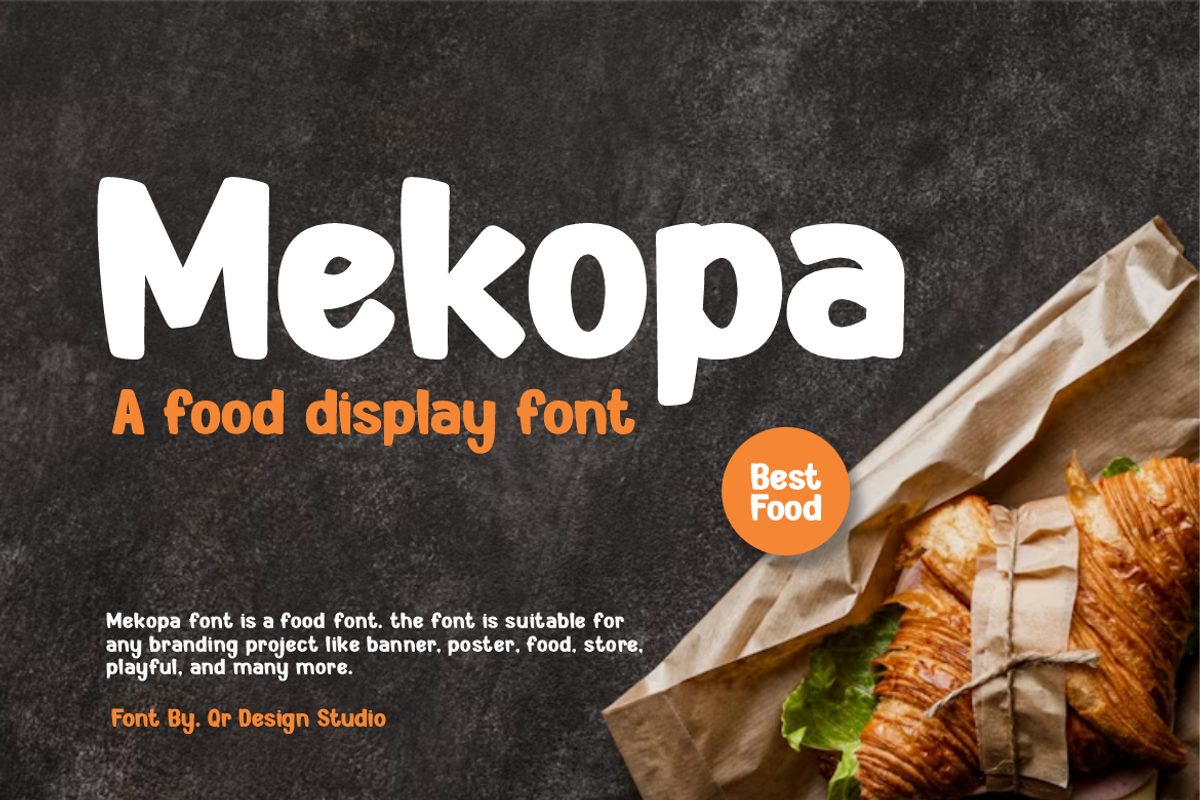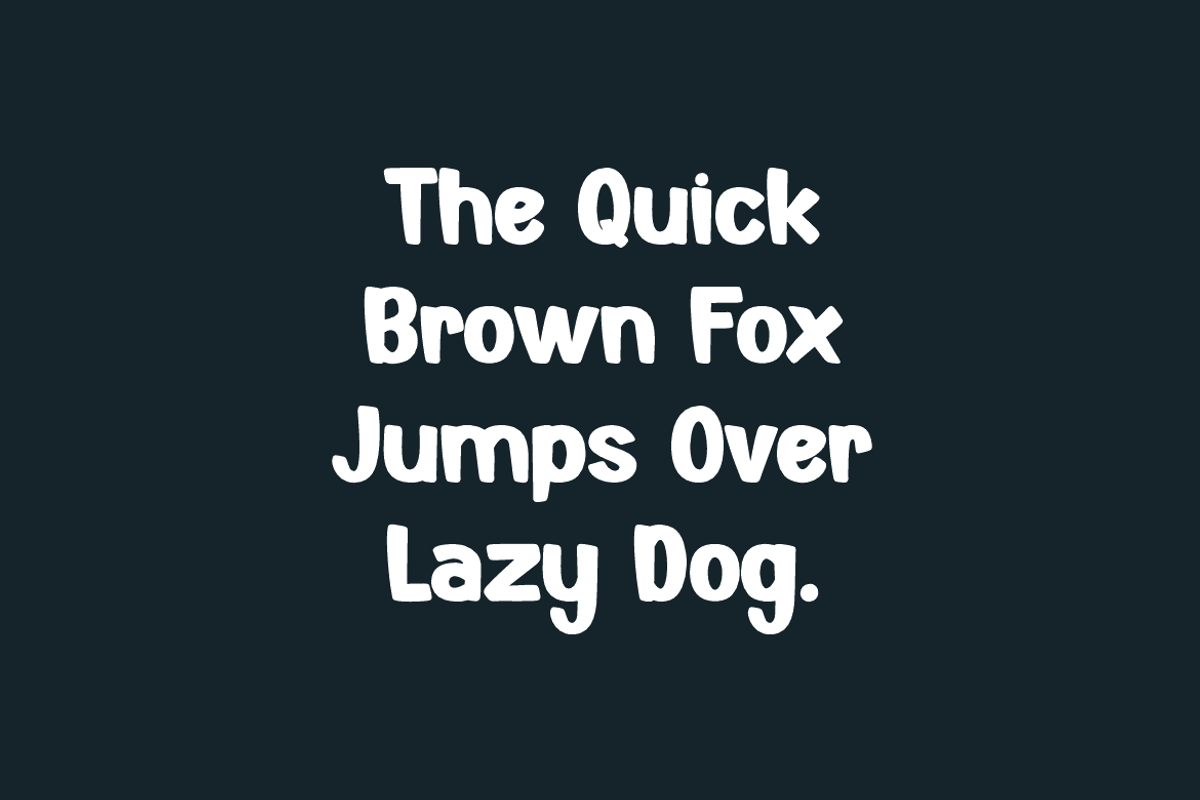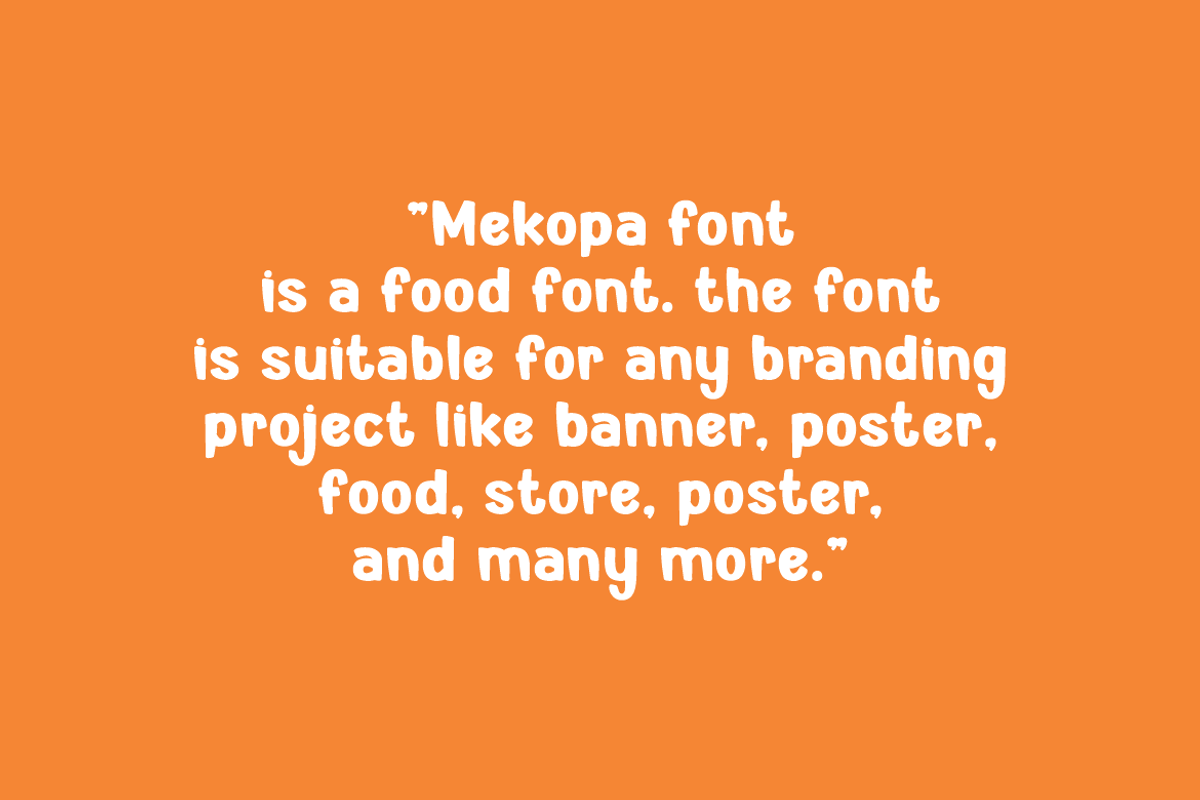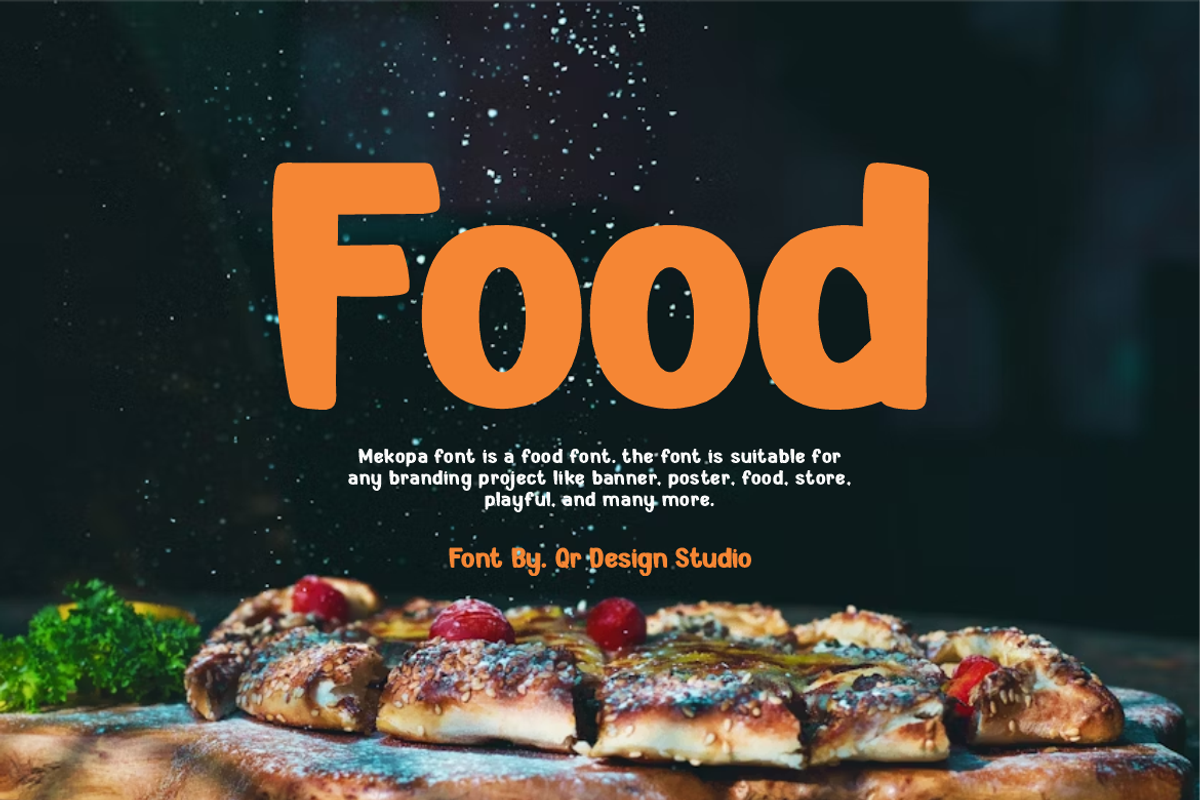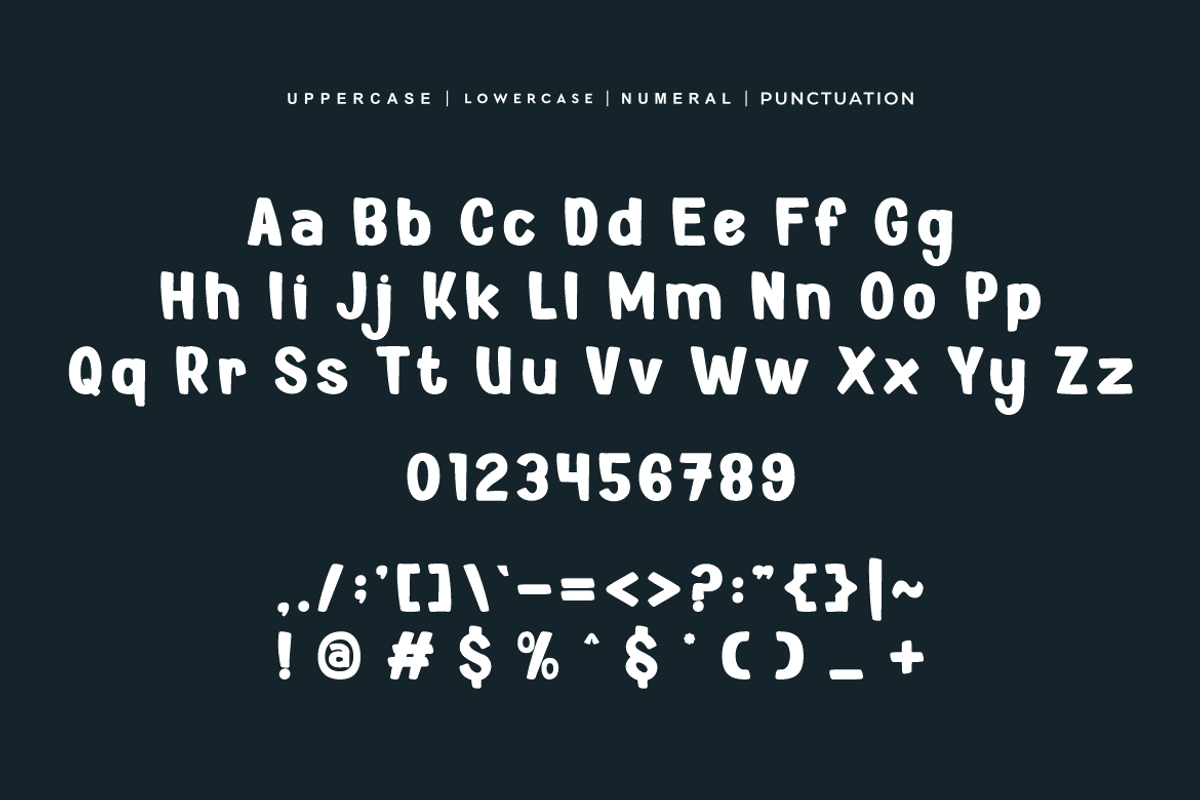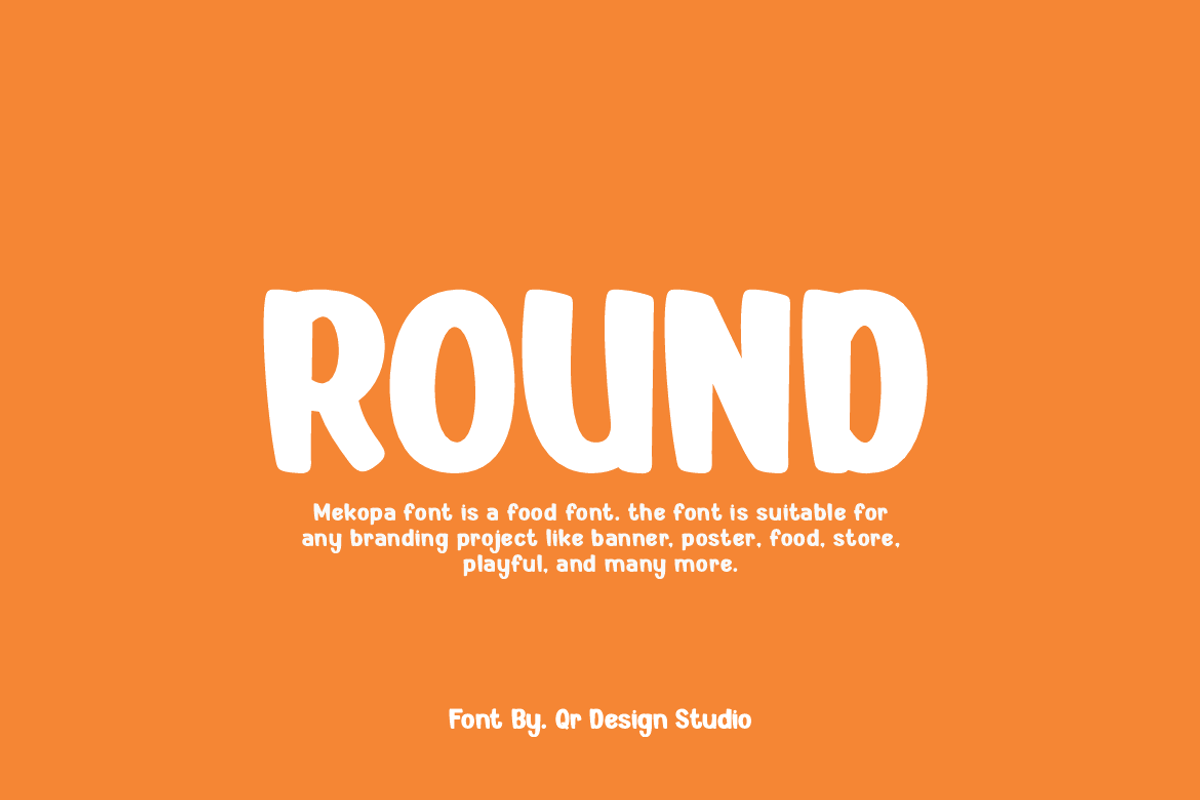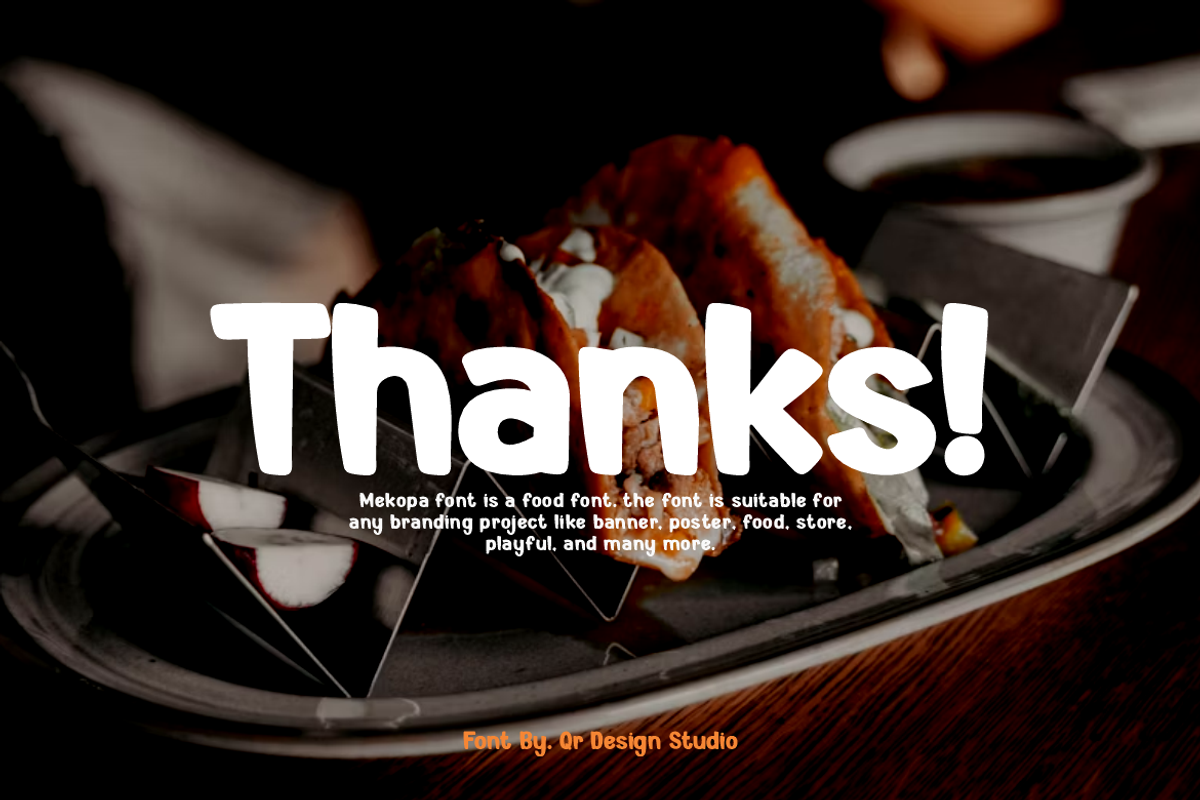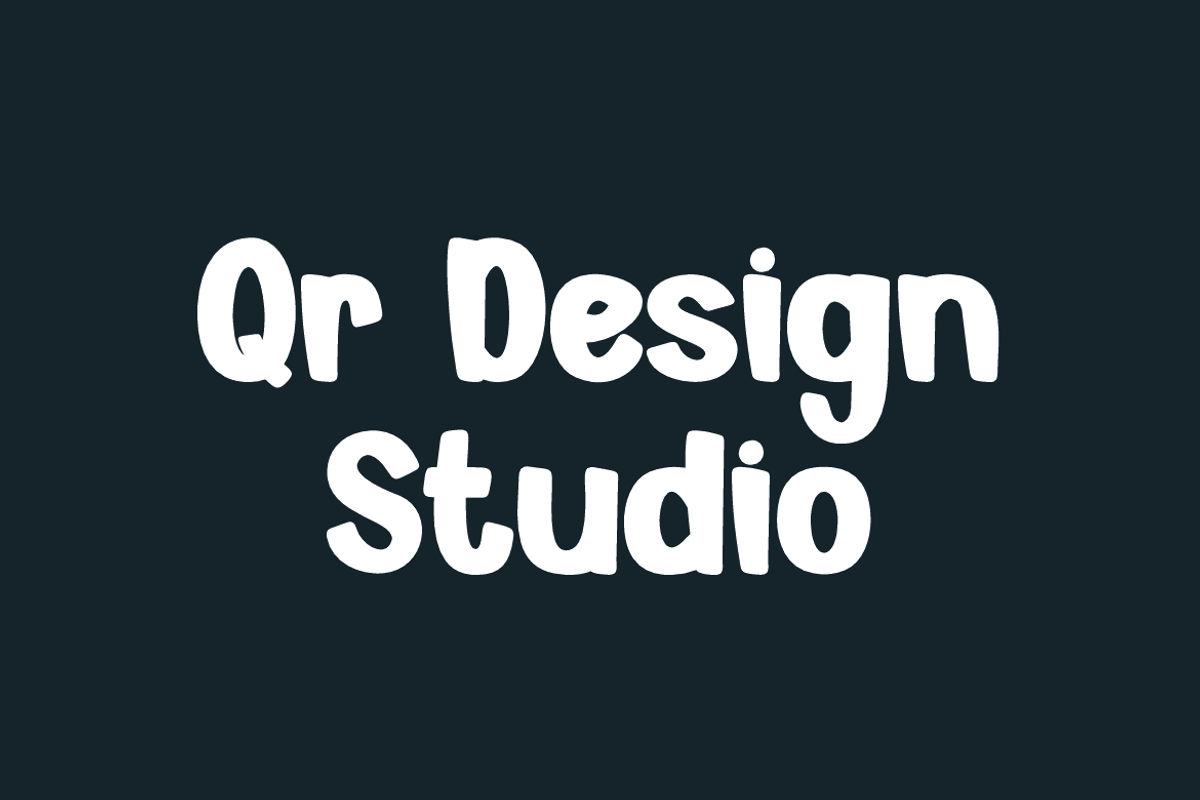
Mekopa - Food Font
Mekopa Font is a bold and authentic display font. The font is suitable for any branding project like poster, logo, food, and many more. Outstanding in a wide range of contexts.